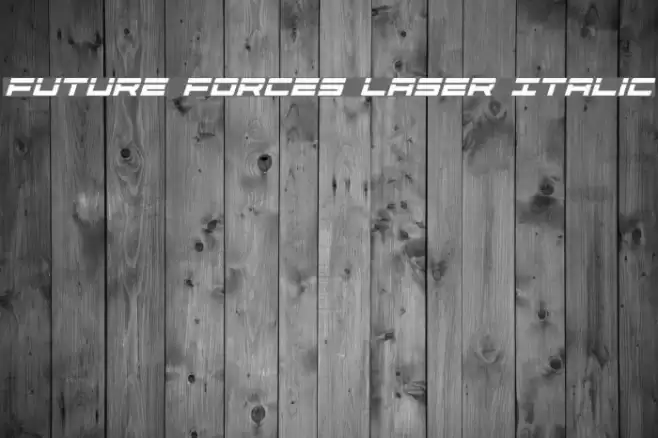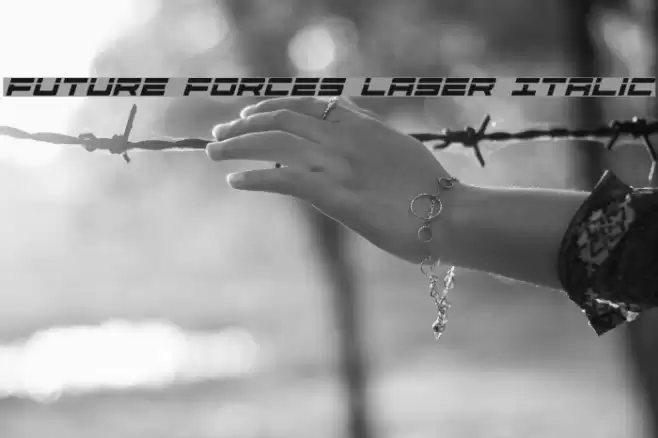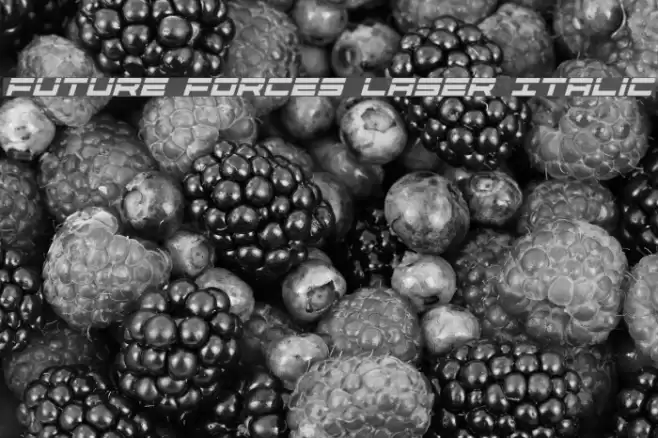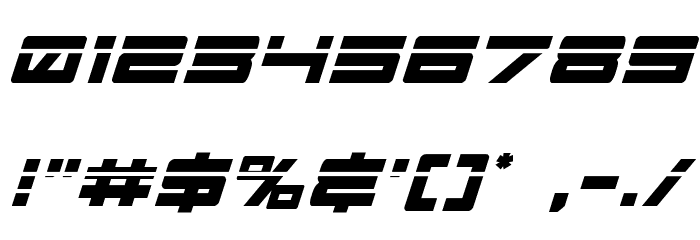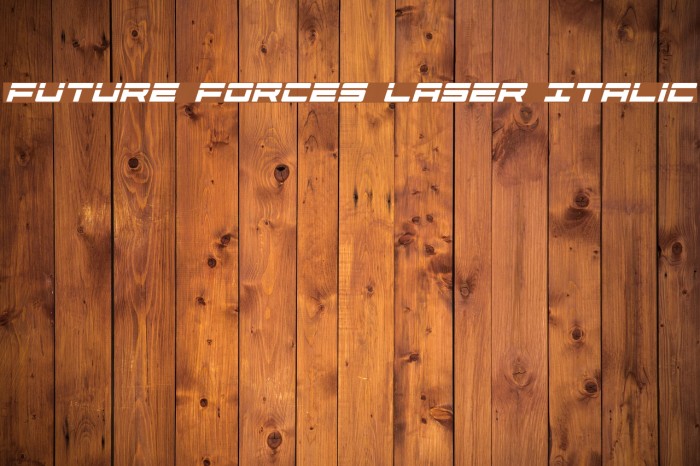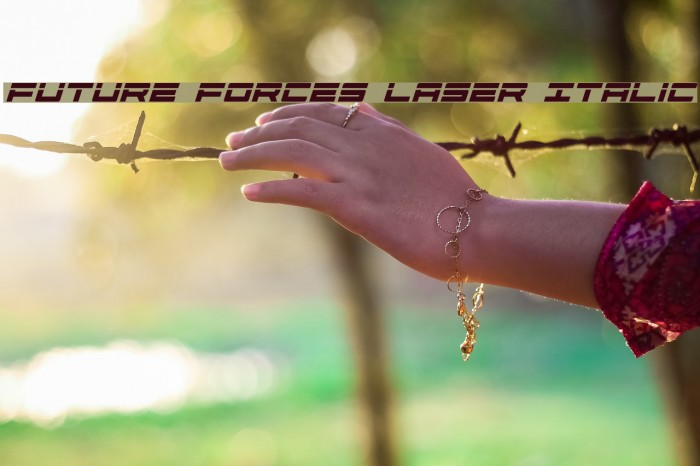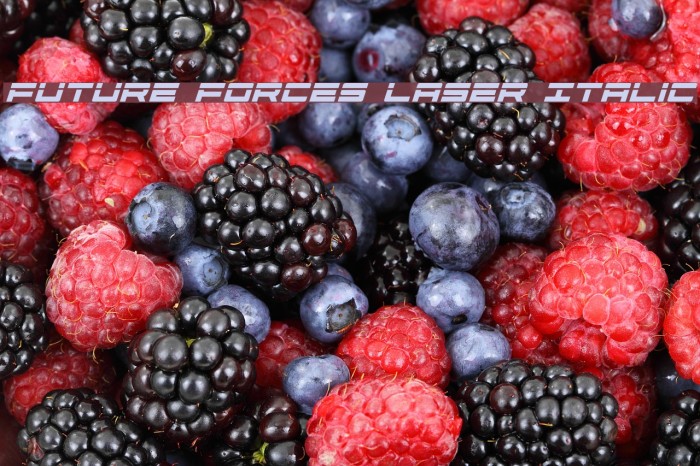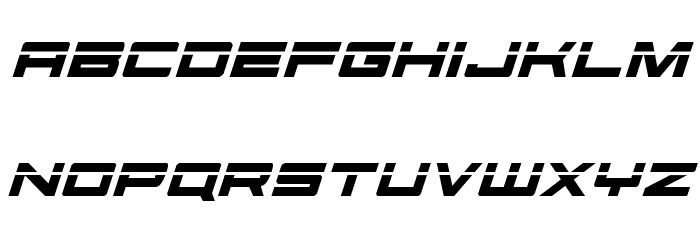
Future Forces Laser Italic Font
Future Forces Laser Italic Description
This font features a futuristic and dynamic design, characterized by sharp angles and a forward-leaning italic style. The uppercase and lowercase letters maintain a consistent geometric structure, with each character exhibiting a sleek, streamlined appearance. The numerals and special characters follow the same design principles, ensuring uniformity across all glyphs. The font's bold weight and high contrast between thick and thin strokes enhance its modern and tech-inspired aesthetic. Its unique style makes it suitable for projects that require a cutting-edge and energetic look.
A futuristic, italic font with sharp angles and high contrast, perfect for tech-inspired designs from Uncategorized fonts.
- Proposed Projects: Ideal for sci-fi movie posters, video game titles, technology branding, and futuristic event flyers.